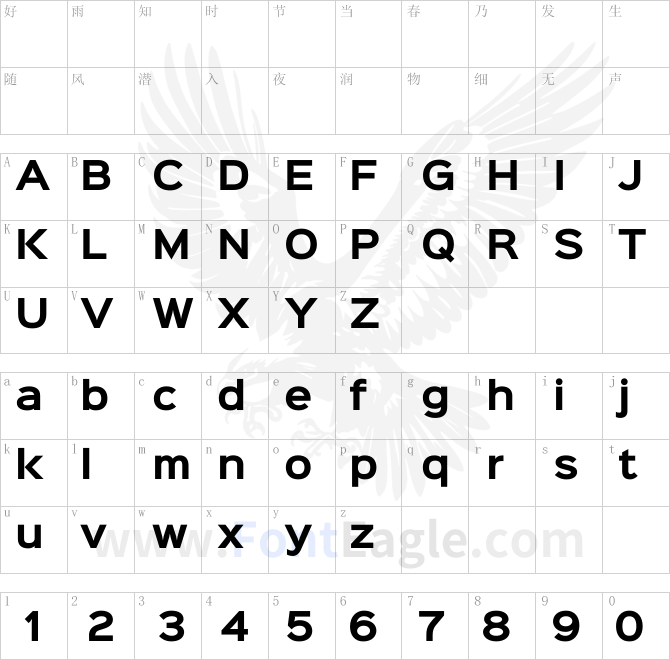
- Font name:Sinkin Sans 700 Bold
- Font Copyright:Sinkin Sans 700 Bold by Keith Bates • © 2014 www.k-type.com • Sinkin Sans is a simple, pleasantly proportioned sans serif with tiny, inconspicuous notches that sink into vertical strokes adding highlights to congested corners.